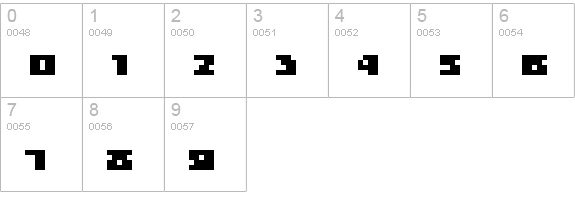
hooge 04_65 Font Details
Hooge 04_65 font is a sleek and modern typeface that exudes sophistication and elegance. Its clean lines and balanced proportions make it perfect for a wide range of design projects, from branding to editorial layouts. This versatile font is sure to make your text stand out and capture the attention of your audience. The best part? Hooge 04_65 font is available for free download at FontsMarket.com. You can easily access this high-quality font and use it in your projects without any cost. Don't miss out on the opportunity to enhance your designs with Hooge 04_65 font – download it now and elevate your typography game!